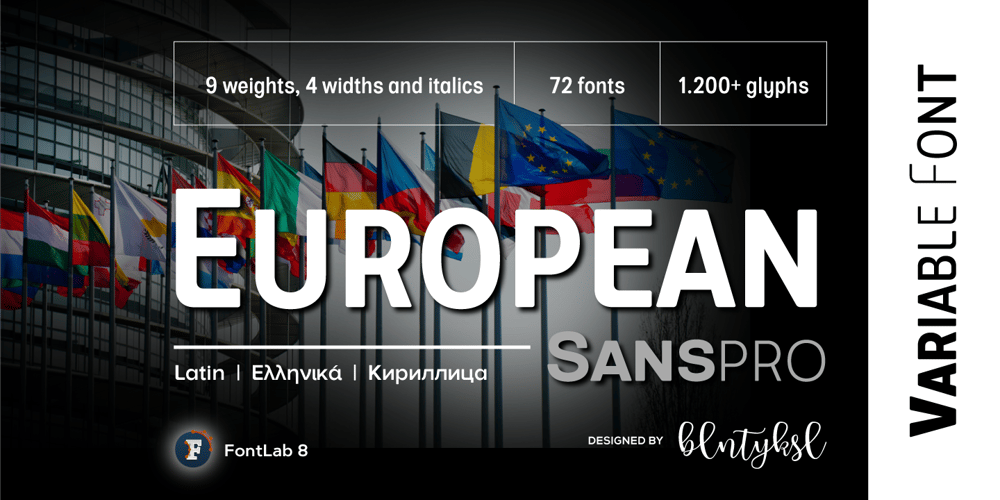
European Sans Pro Variable Font Family was designed by Bülent Yüksel and published by Bülent Yüksel. European Sans Pro Variable contains 1 styles and family package options. EUROPEAN SANS PRO VARIABLEABOUT FAMILY:What makes “European Sans Pro Variable” elegant, friendly and contemporary is its very rounded curves with very open terminals.”European Sans Pro Variable” has been designed with a higher “x-height” than other fonts in its class to make tiny readability more obvious in any use situation. It will be ideal for use in small sizes such as business cards or mobile applications.This typeface is also equipped with powerful OpenType features to satisfy the most demanding professionals. It has solid features like case sensitivity, small, true capitals, full ligatures, tabular figures for tables, old style figures to elegantly insert numbers into your sentences and more alternative characters to give personality to your projects.The extended, “European Sans Pro Variable” supports around 85 languages in the Latin, Cyrillic and Greek scripts, and its non-Latin components were developed with native consultants. With over 1200+ glyphs per style, “European Sans Pro” cares about localised letterforms and has the OpenType features to match.FEATURE SUMMARY:- 9 weights: Thin, ExtraLight, Light, Book, Regular, Medium, Bold, ExtraBold, and Black.- 4 widths: Normal, Narrow, Condensed, and Extra Condensed.- Matching italics (12º) for all weights and widths .- Matching small caps for all weights and widths.- Lining and old style figures (proportional and tabular).- Alternate characters (A, G, M, N, R, U, a, g, l, m, n, u, y).- Unlimeted fractions.- Automatic ordinals (1st, 2nd, 3rd, etc.).- 24 Dingbats + 19 Social Media and Block Chain icons.- Extended language support: Most Latin-based scripts (including Vietnamese), Cyrillic, and Greek.- Extended currency support.You can contact me at buyuksel@hotmail.com, pre-purchase and post-purchase with questions and for technical support.You can enjoy using it.